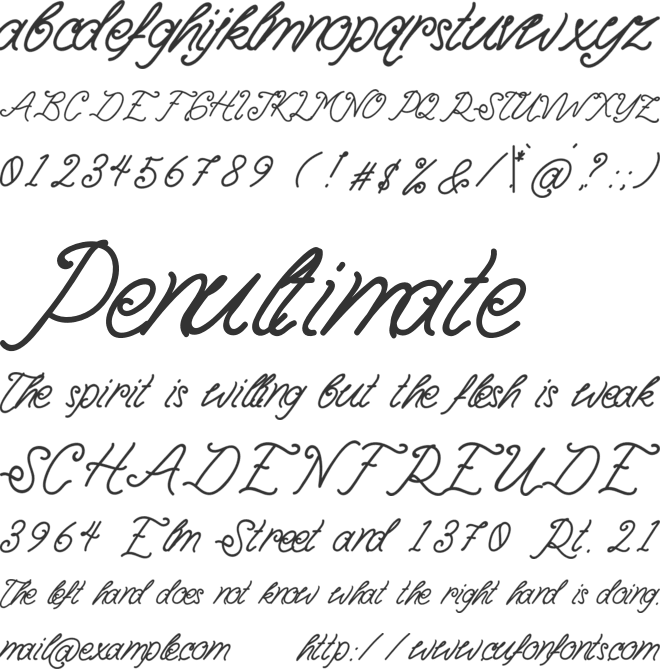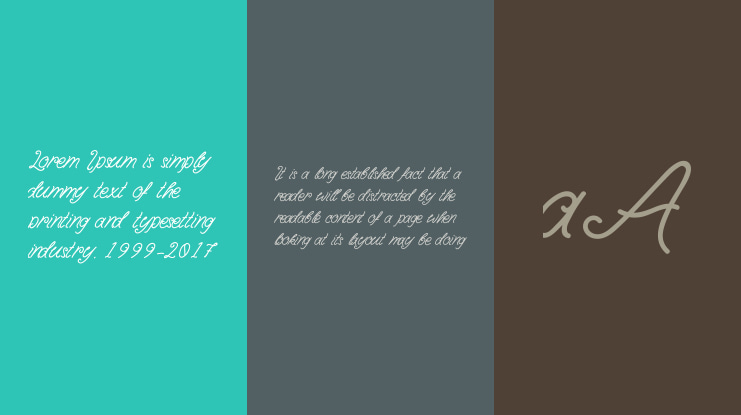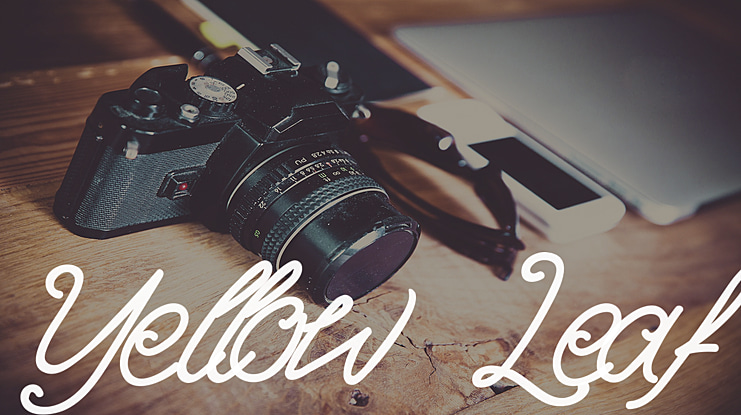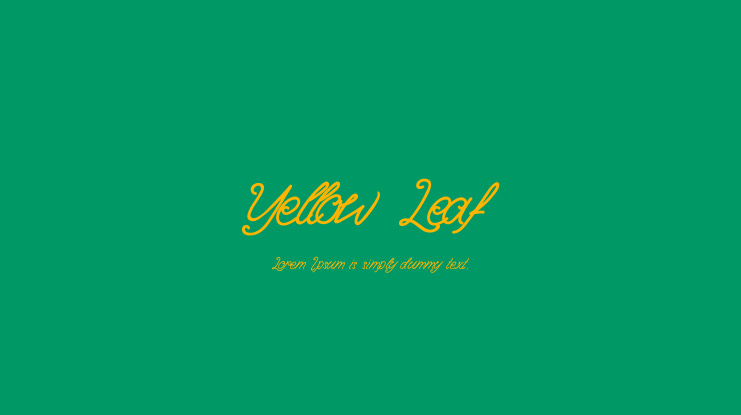
Yellow Leaf Font
Yellow Leaf Script Typeface Font. A collection of letters and numbers suitable your projects also great for Logotype, Branding Design, Logo Design, Digital Lettering Arts, T-Shirt/Apparel, Poster, Magazine, Signs, Advertising Design, and any design needs.Click Our Website :https://staircaselab.com/product/yellow-leaf/